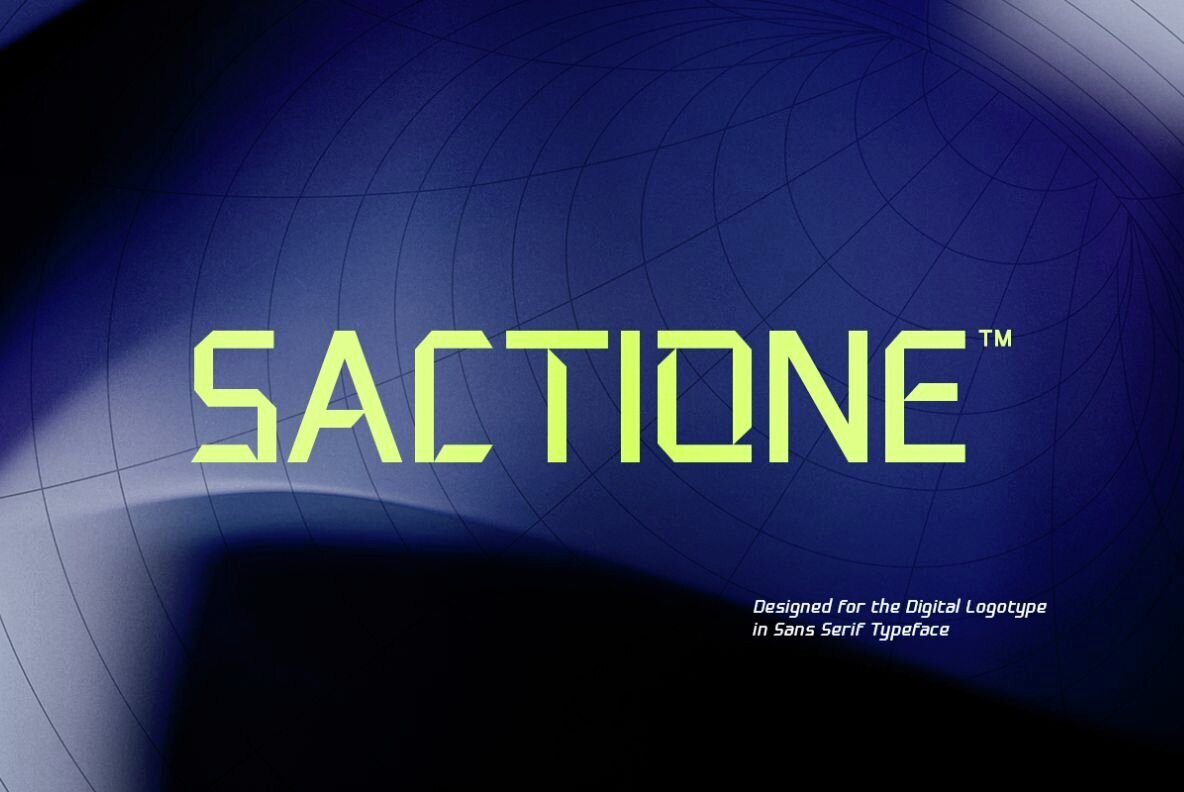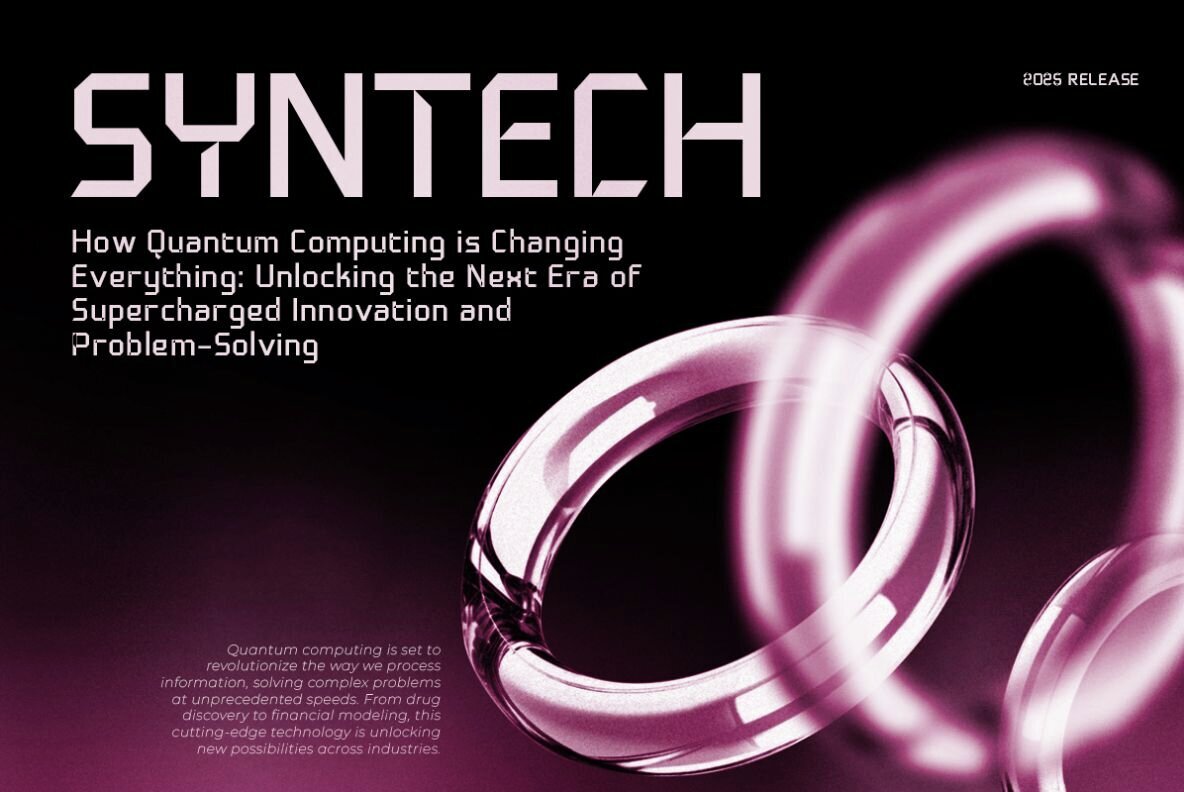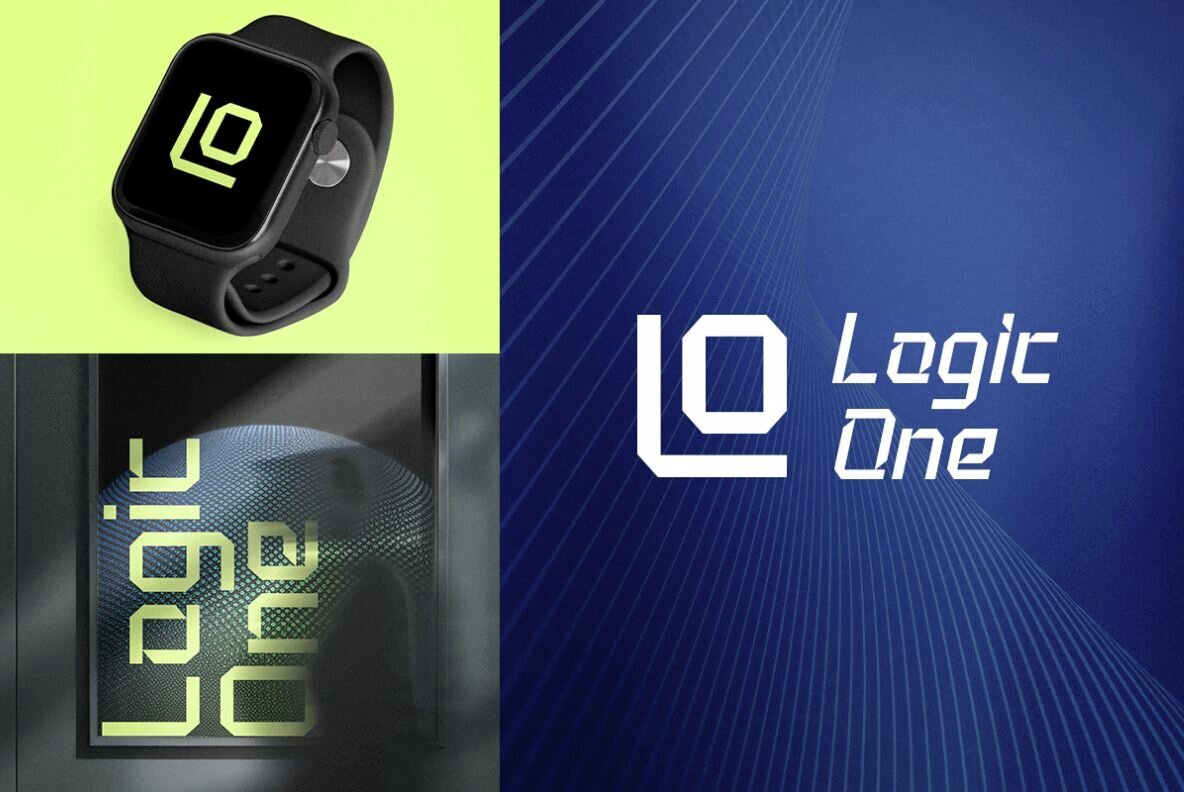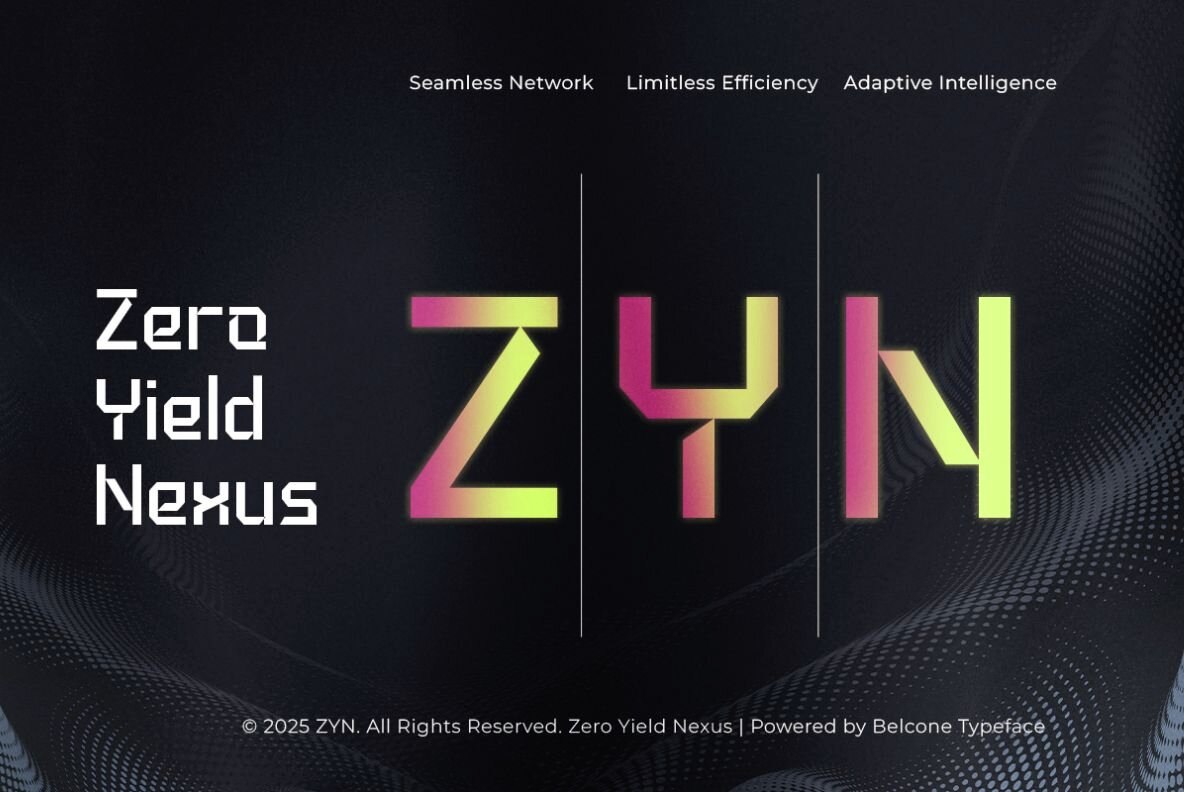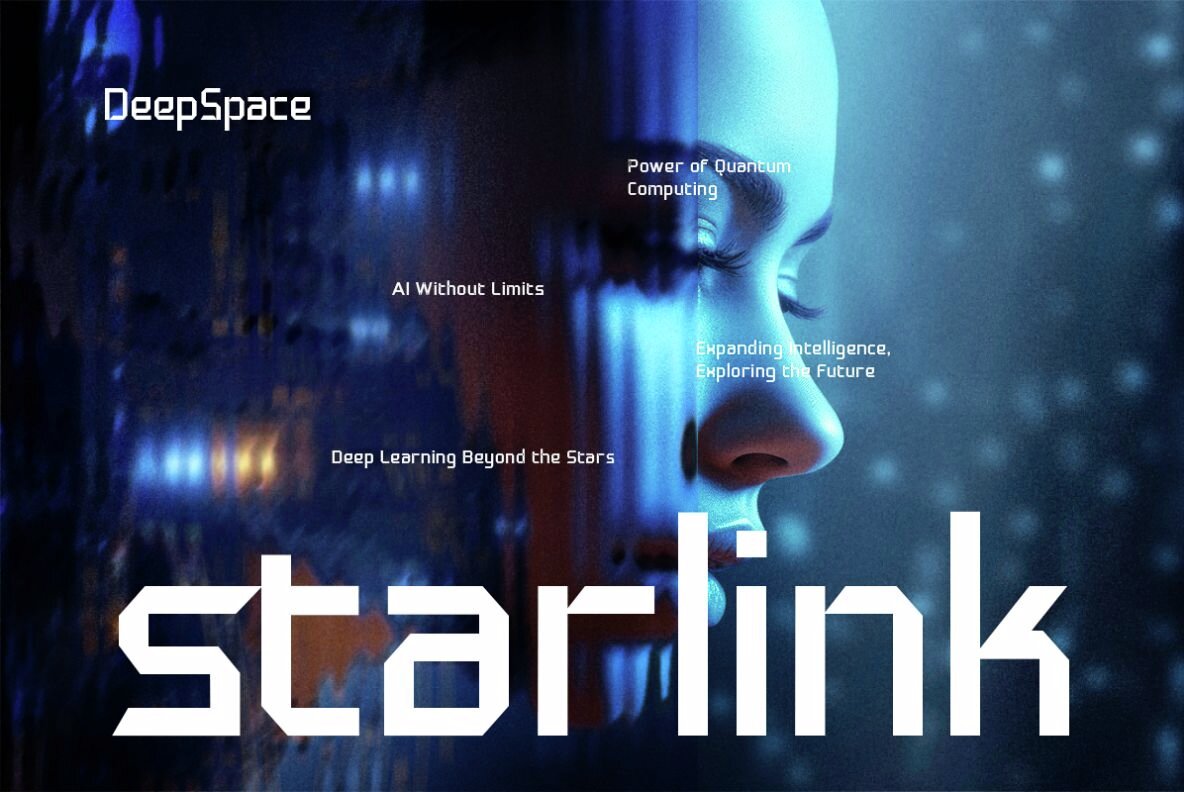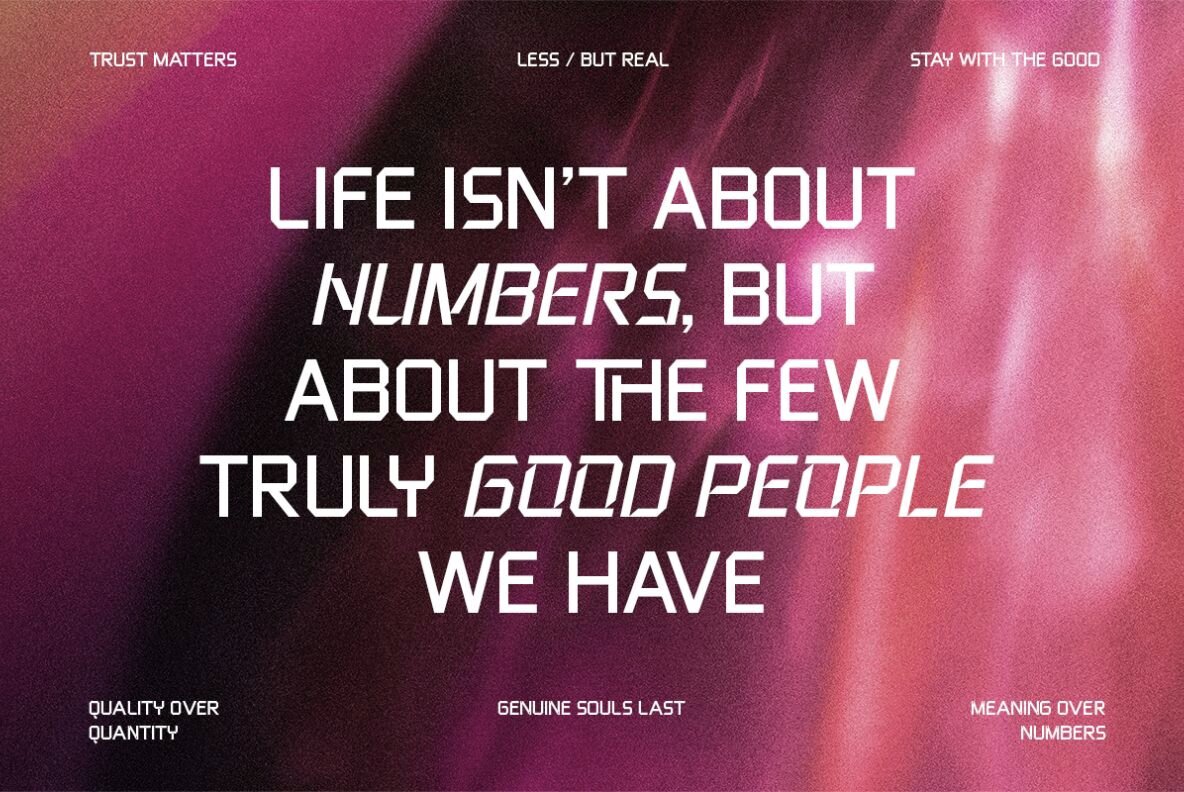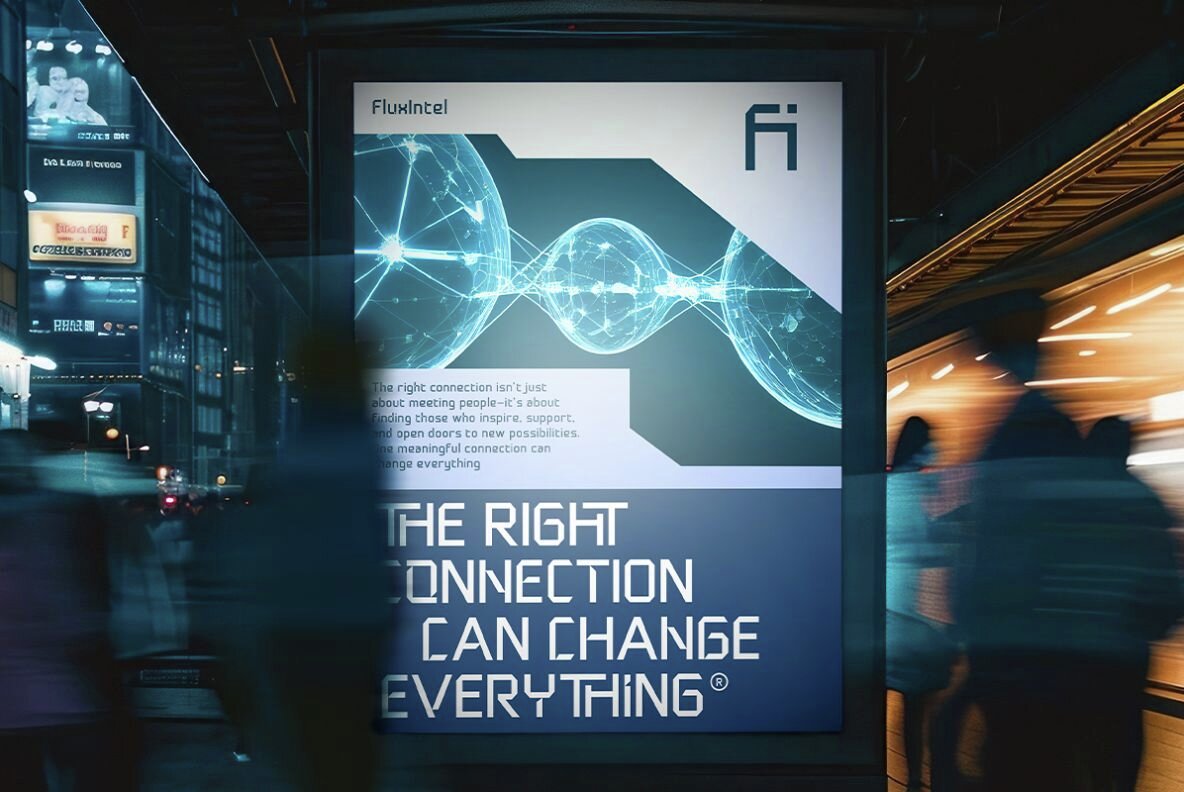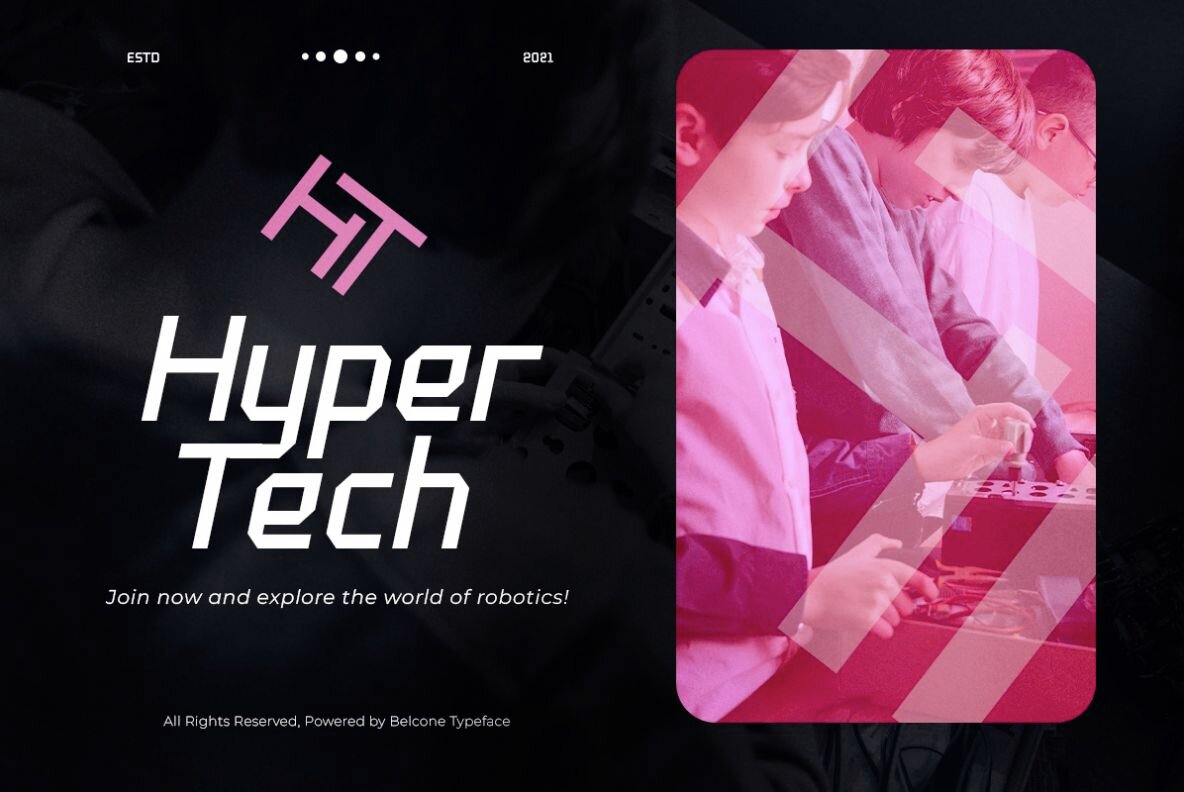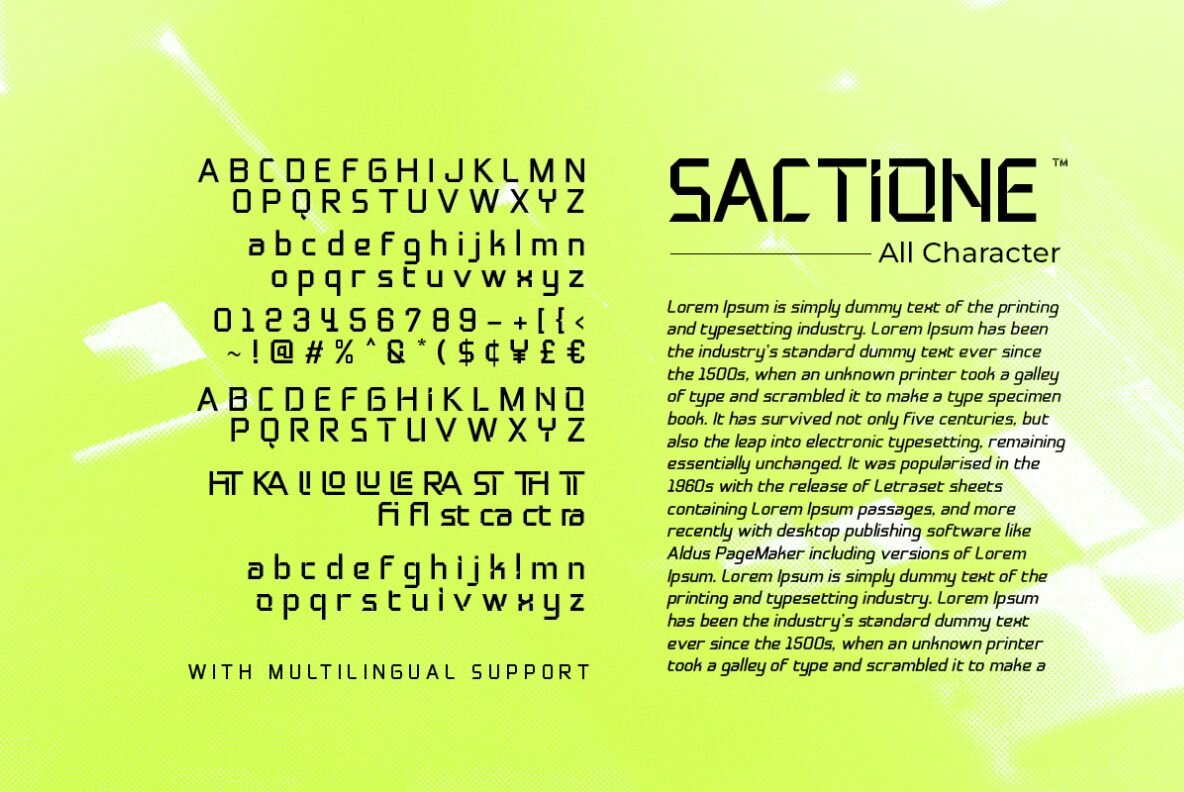
Sactione Font
Sactione Regular
Sactione Italic
Sactione offers a sleek, digital aesthetic, drawing inspiration from the future with a modernized sans serif style. Perfect for the discerning graphic designer, it enhances the cleanliness and sophistication of logos with both uppercase and lowercase options. The inclusion of ligatures and unique cut-offs adds a distinct flair, ensuring your projects stand out. Sactione is the go-to choice for designs requiring a high-tech edge, offering both versatility and an innovative aesthetic.Sactione: A Futuristic Sans Serif Font